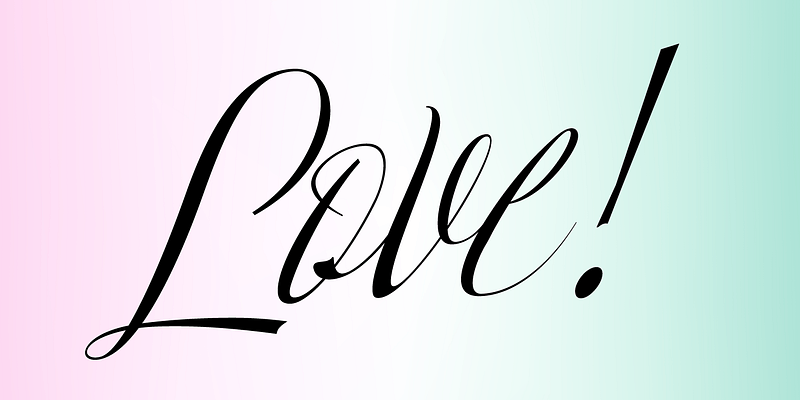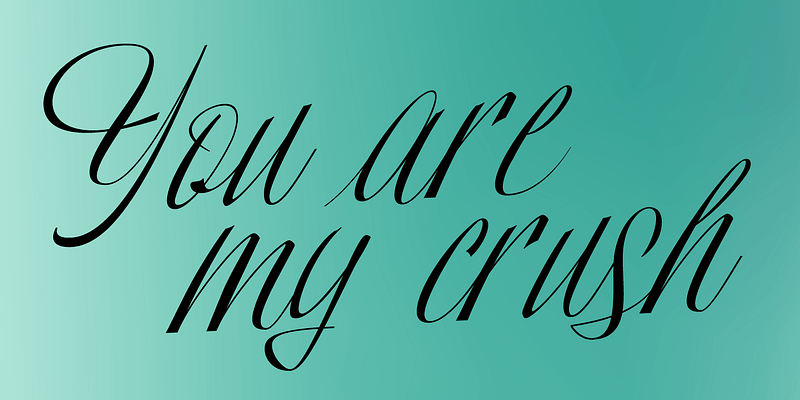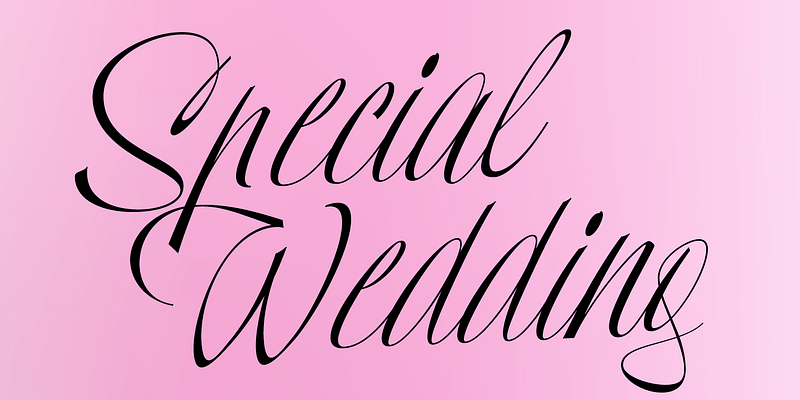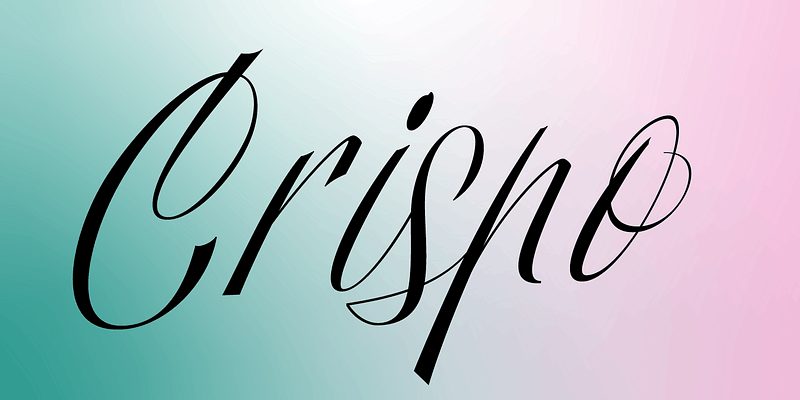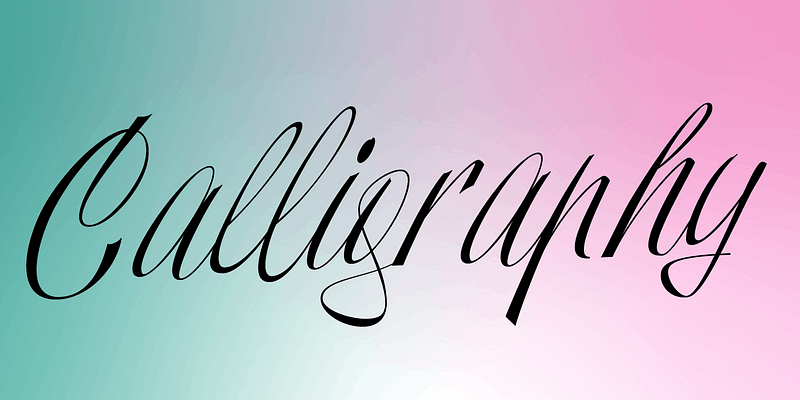
Crafted with precision in pointed pen calligraphy. This font embodies timeless grace and dynamism, each character, ligature, and swash showcases the artistry of this delicate craft.
Resistenza is a type foundry consisting of Giuseppe Salerno, a trained calligrapher who gained his graphic design skills in Torino, Italy, and Paco González, a self-taught Spanish-born designer from Valencia. Working mostly by hand, a bold, humanistic quality comes through in their graphic design, emphasizing a connection with the places and people that use a particular product or service. Oftentimes, Resistenza create collections of their typefaces to work in a set or family, building on a brand that can work throughout a piece. Creating a library of brush scripts and calligraphic typefaces in addition to unique illustrations, sketches, icons and more, the two complement each other when coming to together for a particular client. With a deep passion for bringing type to life, beginning traditionally with pen and paper, and eventually implementing digitisation, the duo express the distinct features of their typefaces through the various influential cities they work and live in Berlin, Madrid, Torino and Valencia.